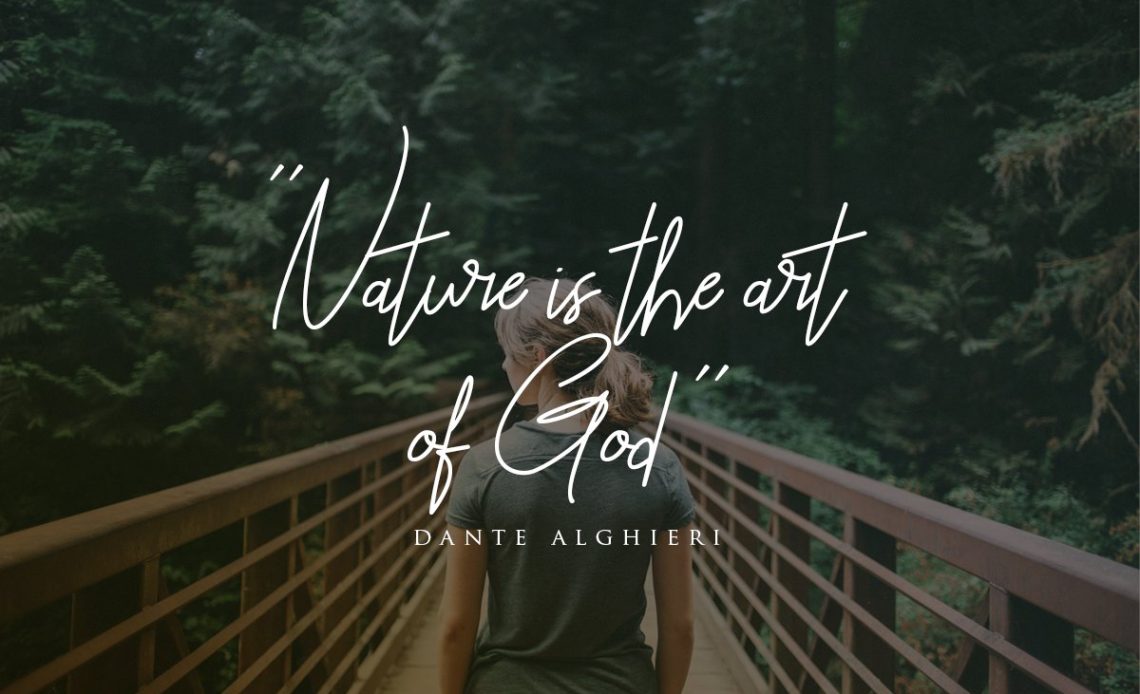
Rhesmanisa Signature Font – a new modern & fresh script with a handwritten and script style make this font looks elegant, natural, stylish and perfect for any awesome projects that need handwriting taste.
Rhesmanisa would perfect for photography, watermark, social media posts, advertisements, logos & branding, invitation, product designs, label, stationery, wedding designs, product packaging, special events or anything that need handwriting taste.
Rhesmanisa have 2 families, Regular and Bold